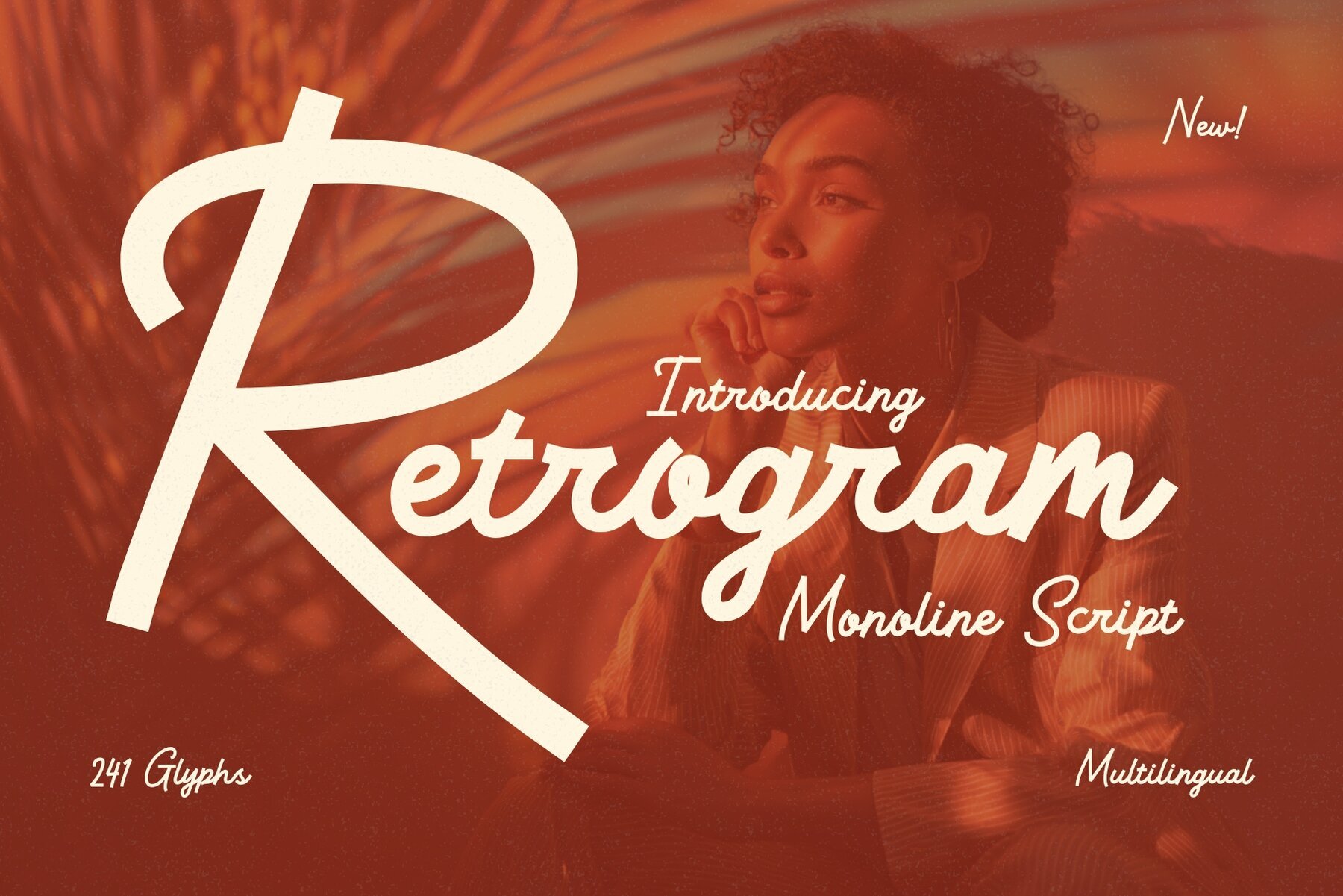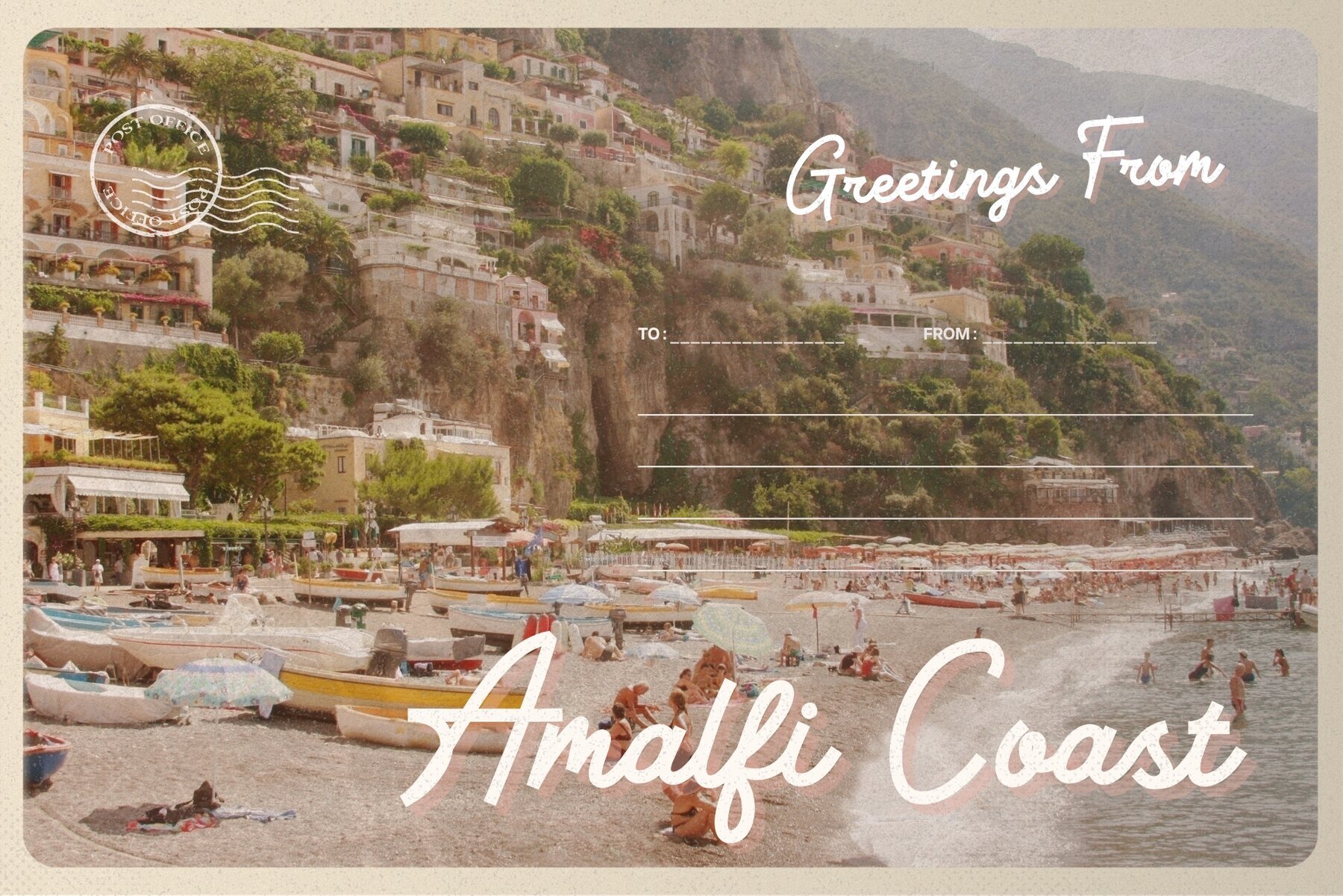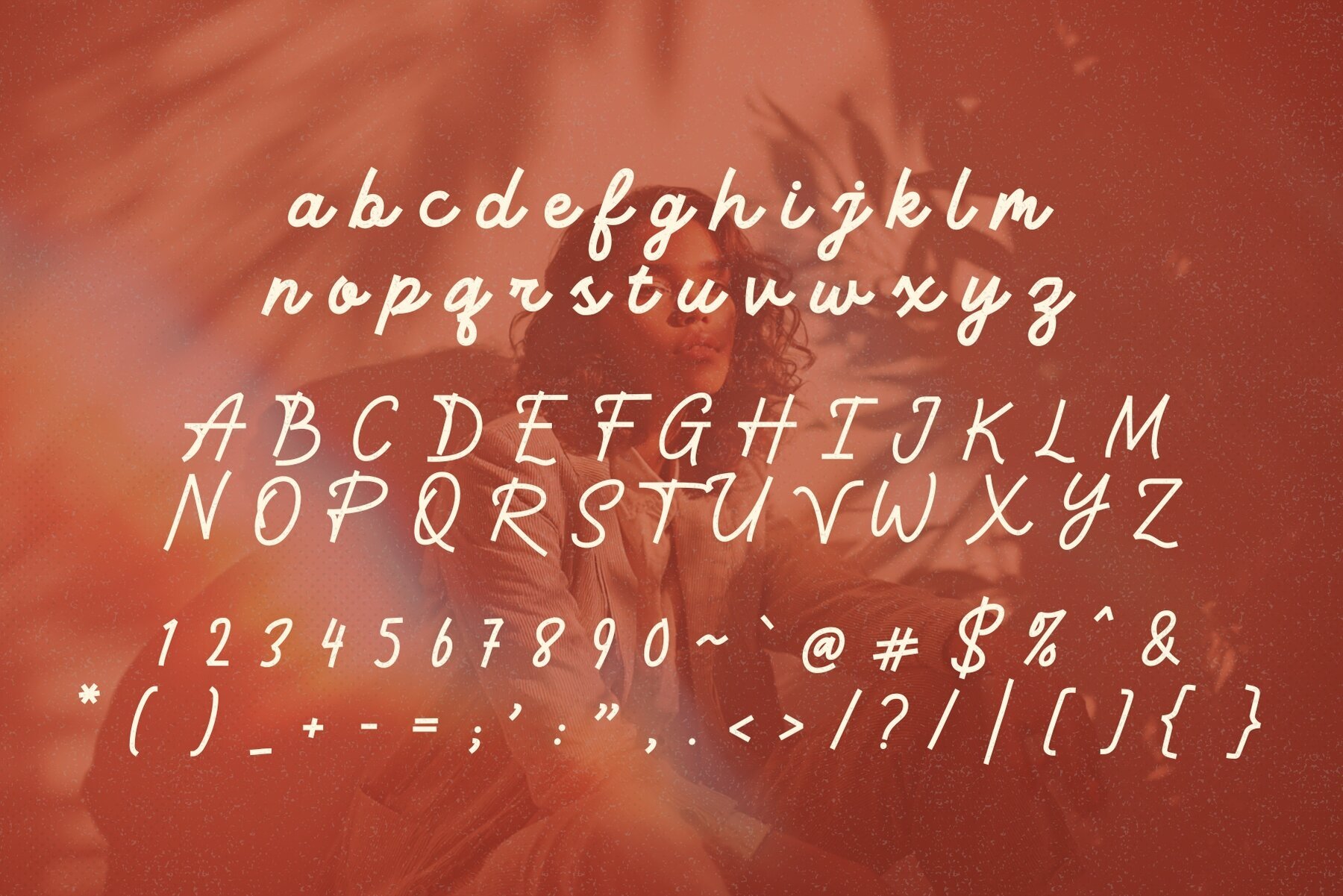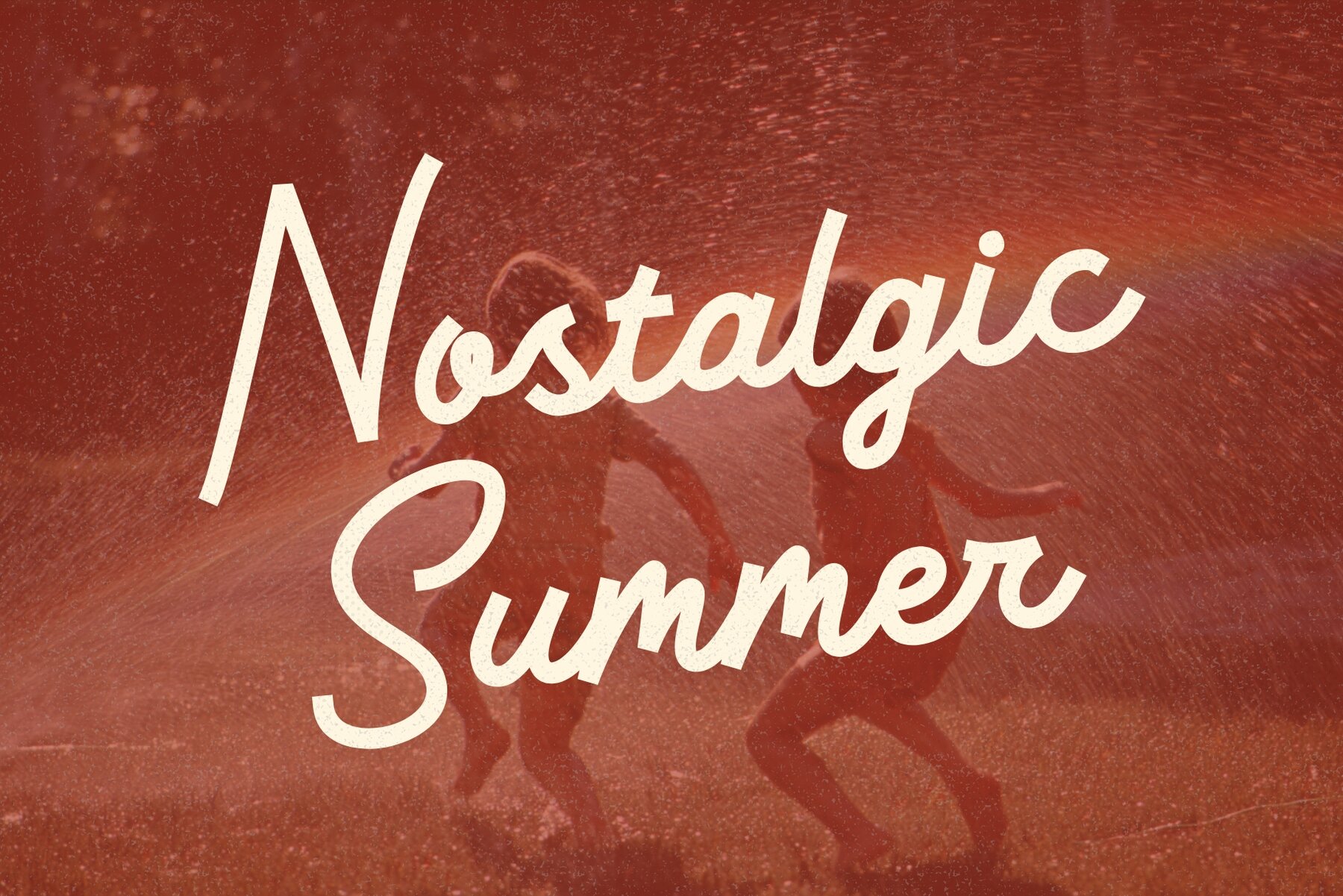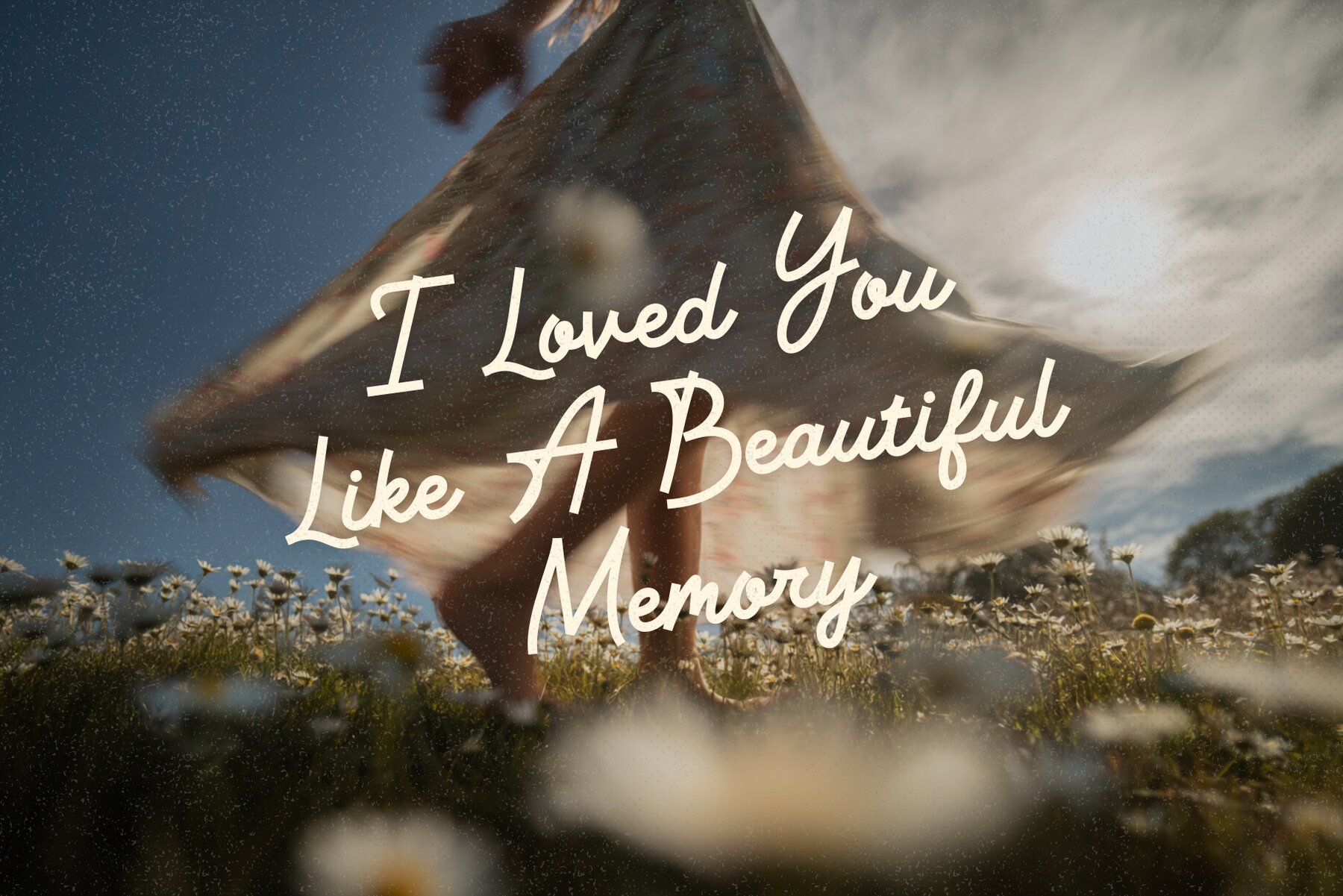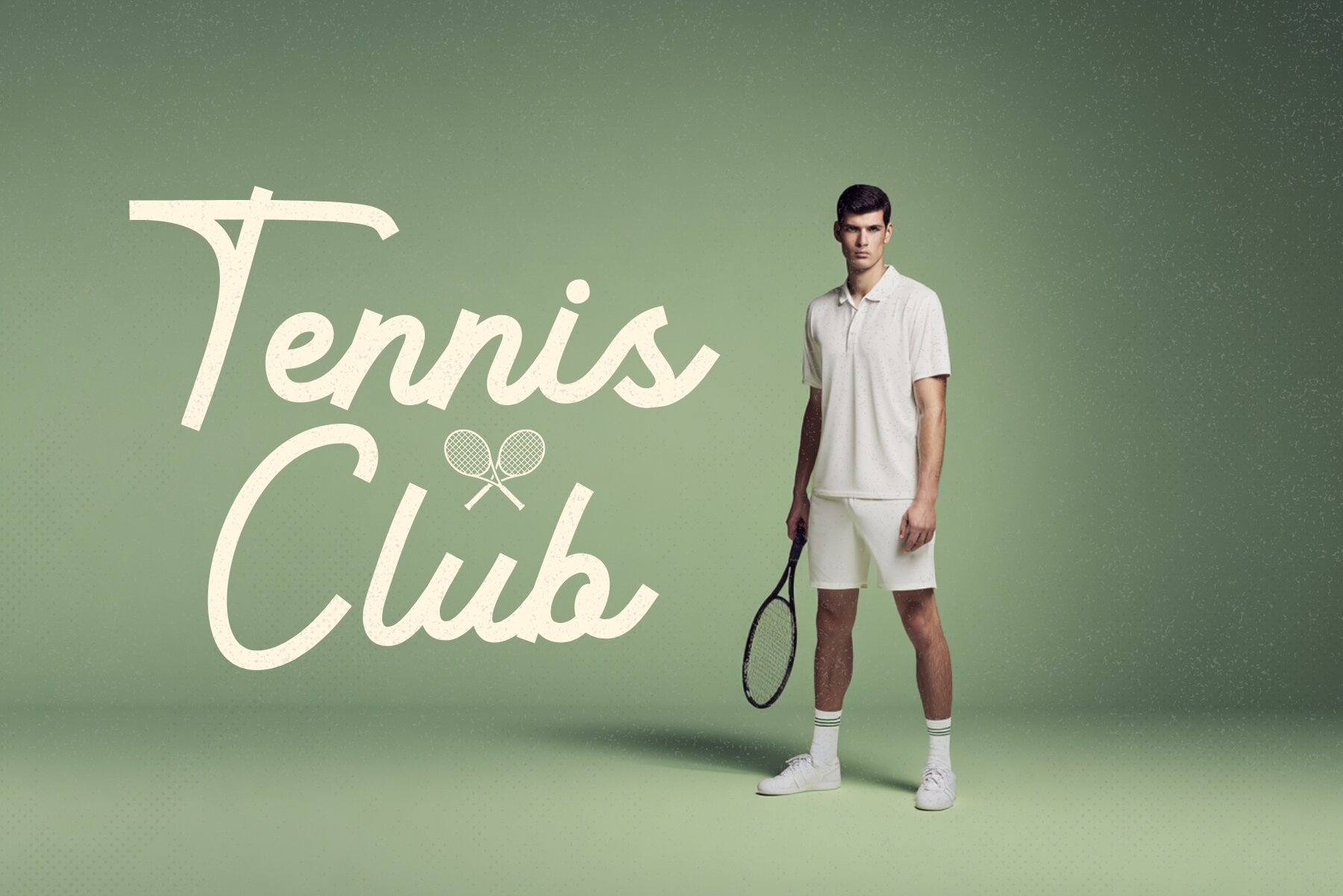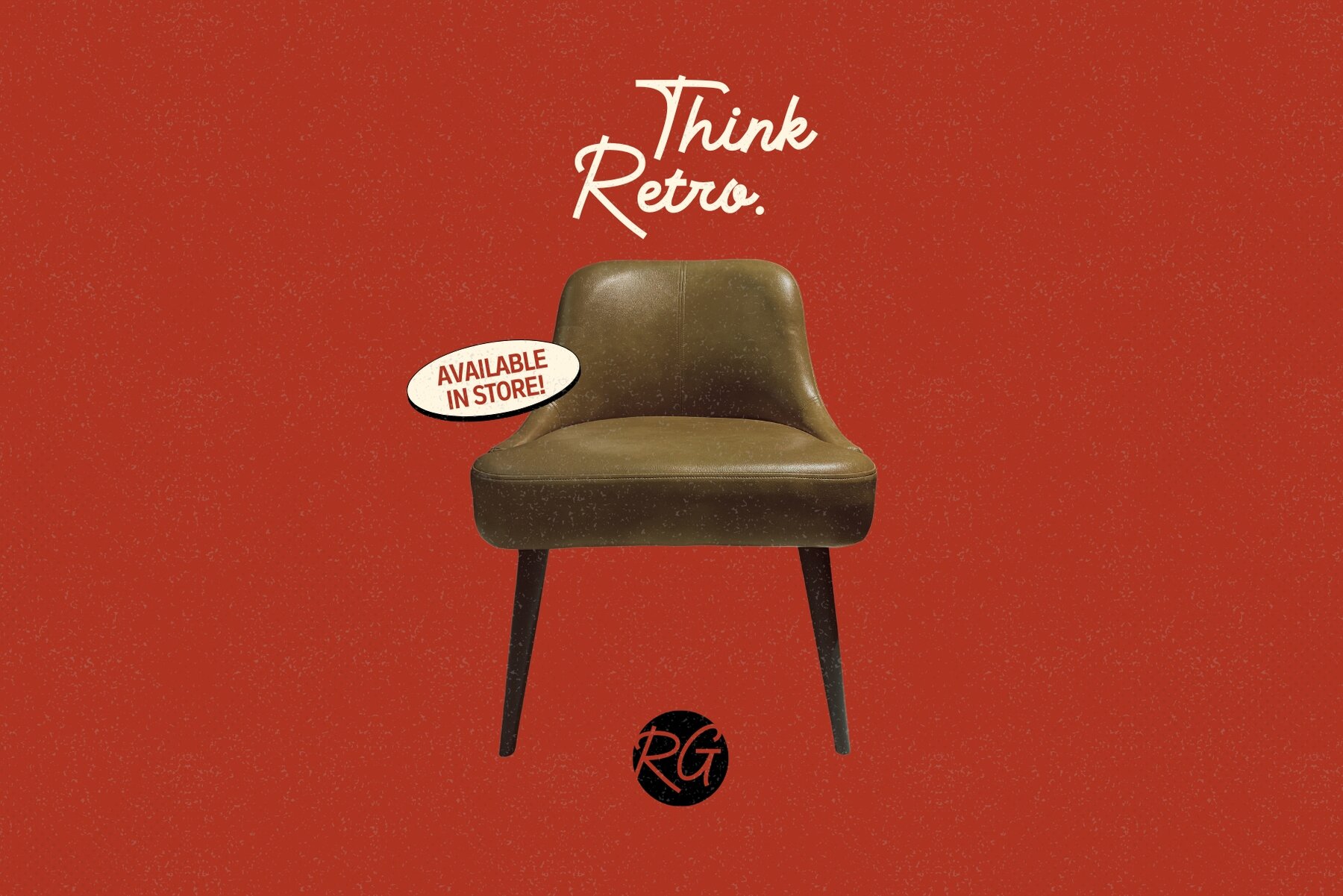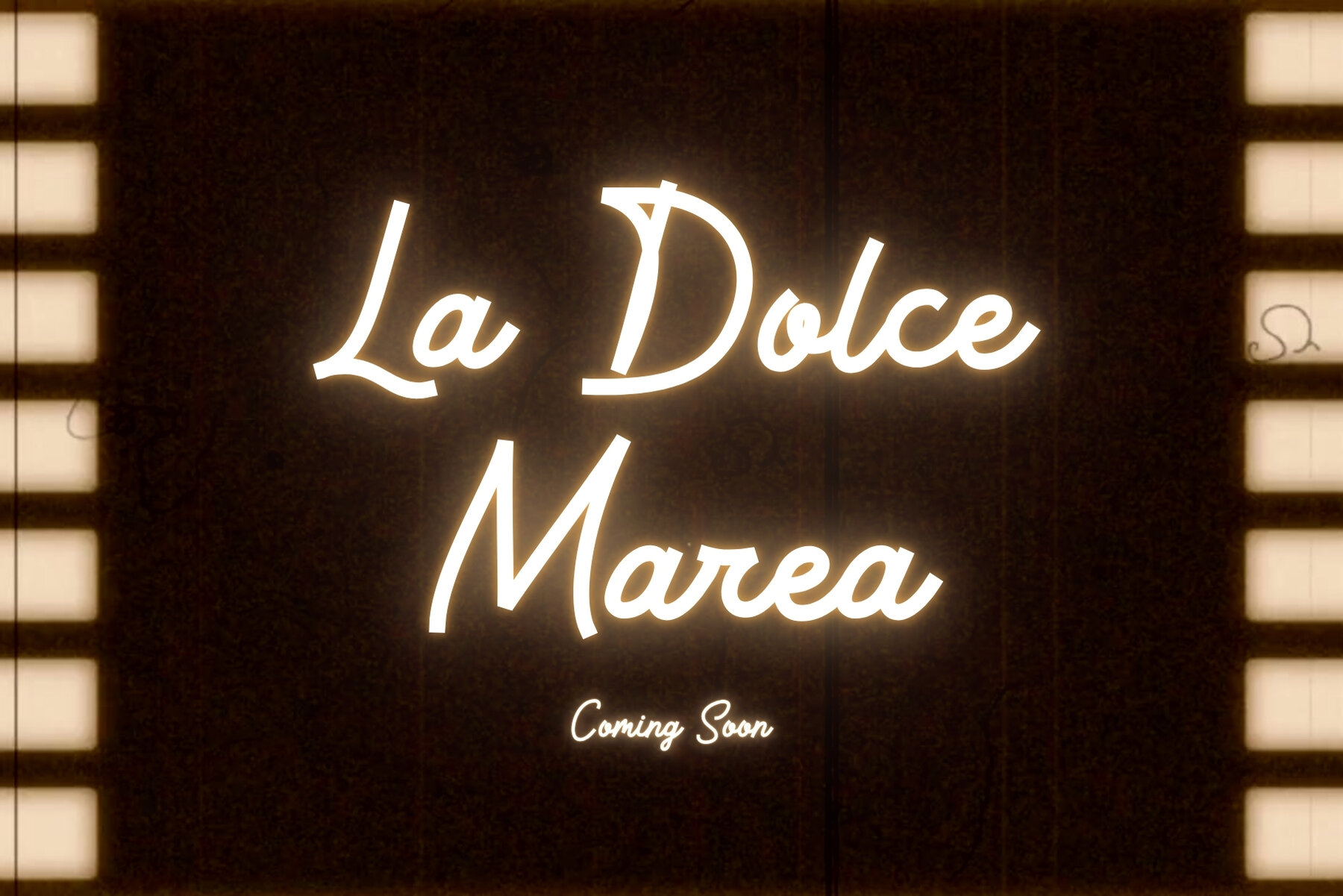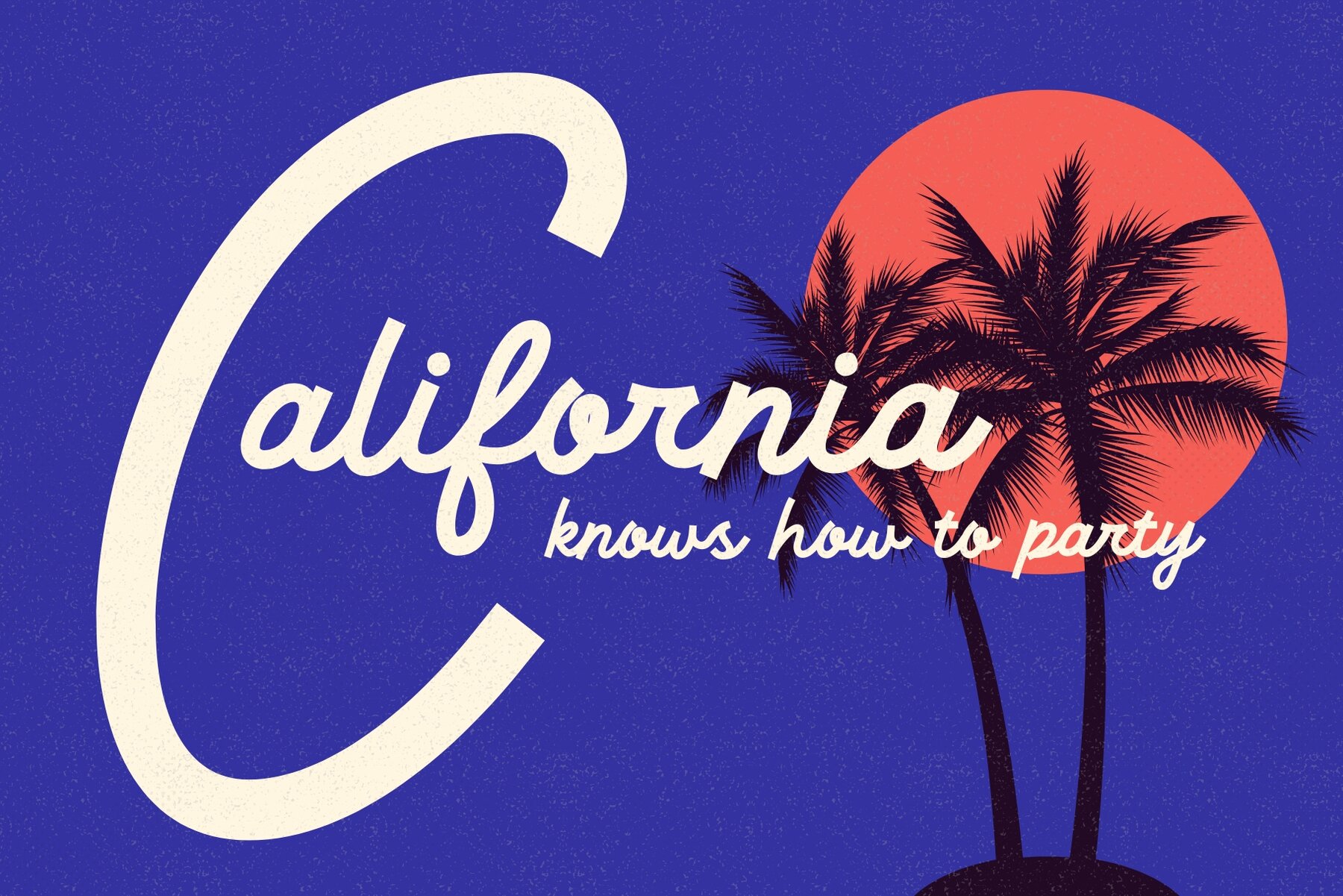
Retrogram Font
Retrogram Regular
Embrace the allure of nostalgic design with Retrogram, an engaging monoline script font that exudes charm and character. Drawing inspiration from mid-century signage, iconic soda labels, and the essence of retro Americana, Retrogram transcends mere typography. It channels a bygone era, inviting creative exploration. The font's precise craftsmanship is evident in every curve, infusing your designs with graceful fluidity and rhythm. Whether you're designing a movie title, a brand logo, a poster, or a headline, Retrogram captures attention with its understated elegance and confident glow.Retrogram: A Charismatic Monoline Script Font